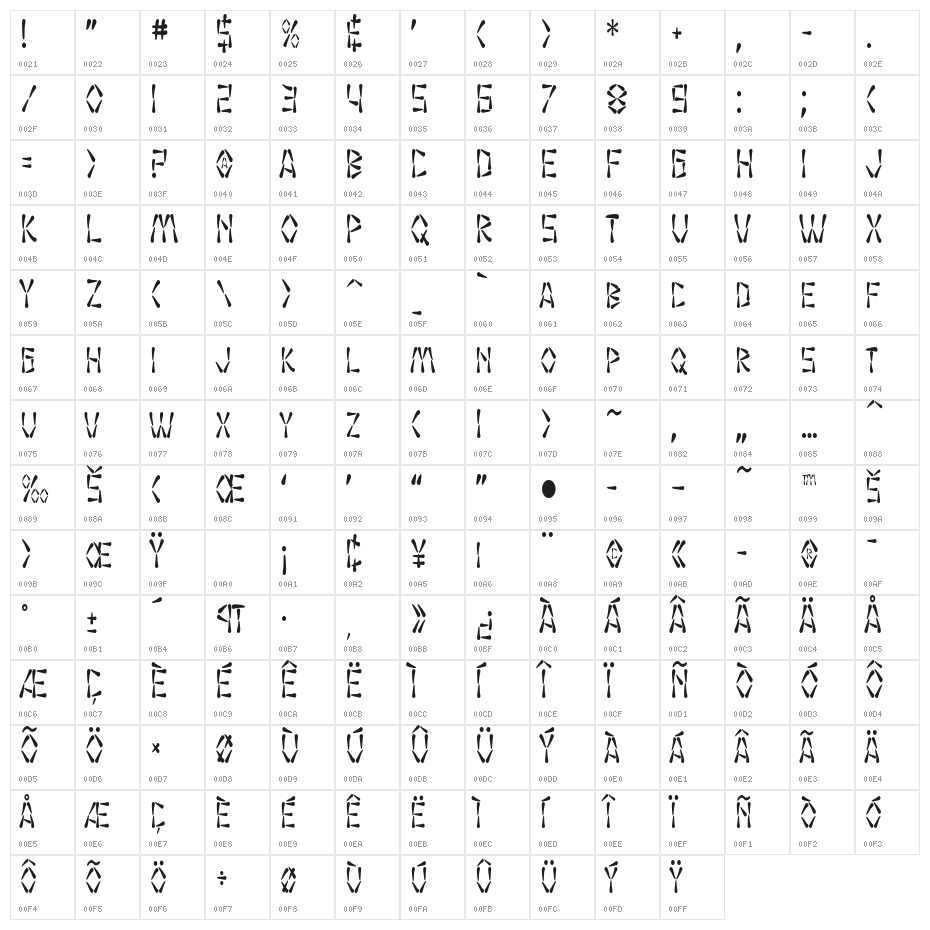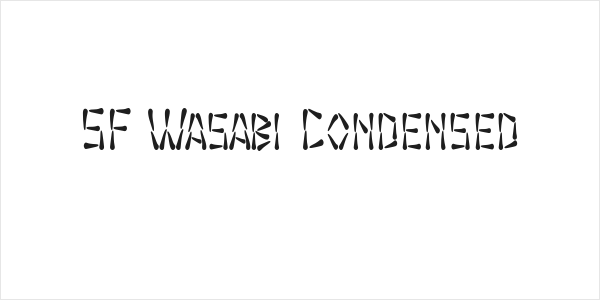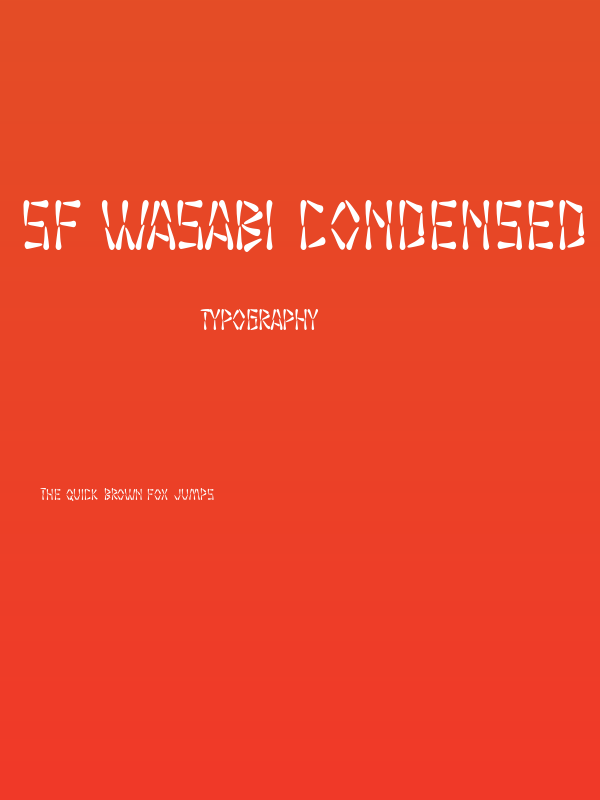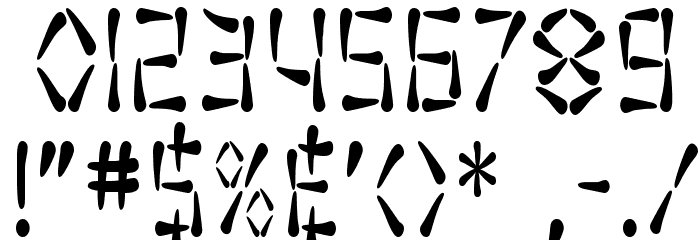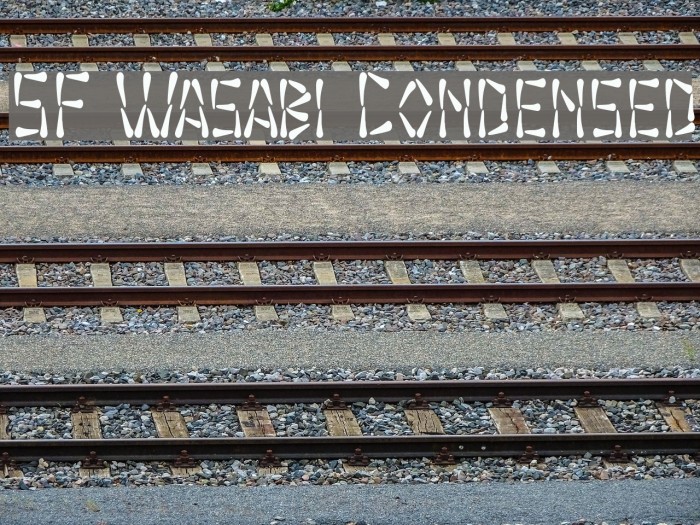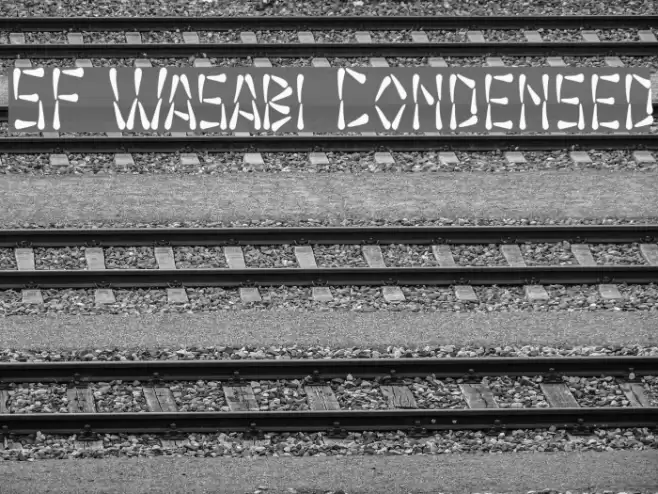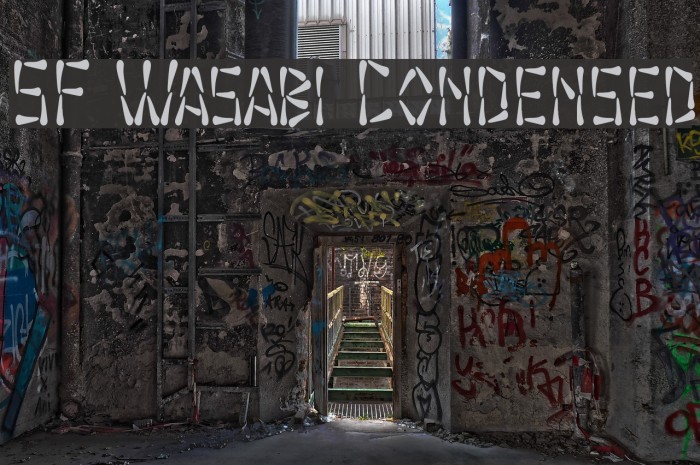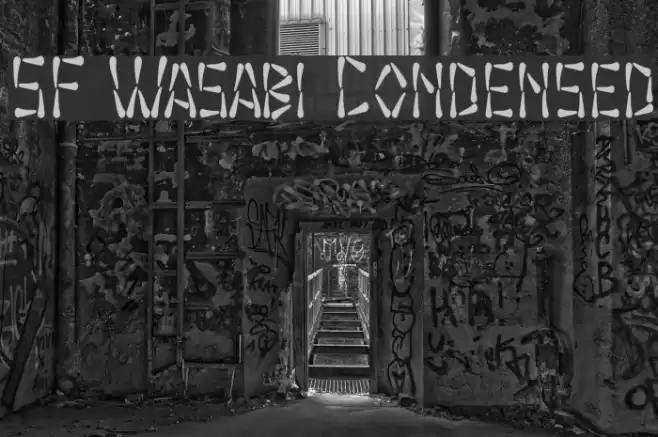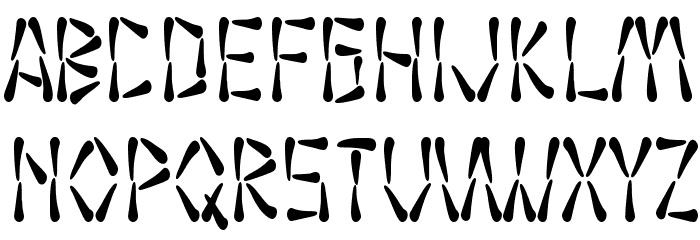
SF Wasabi Condensed Font
SF Wasabi Condensed Description
This font features a unique and playful design, characterized by its bold and condensed letterforms. Each character is composed of thick, brush-like strokes that give it a dynamic and energetic appearance. The irregular shapes and angles create a sense of movement and spontaneity, making it stand out in any design. The font includes a full set of uppercase and lowercase letters, numbers, and a variety of special characters, all maintaining the same distinctive style. Its artistic flair makes it suitable for creative projects that require a touch of originality and boldness.
| Proposed Projects | Ideal for posters, branding, packaging, and any creative project that requires a bold and artistic touch. |